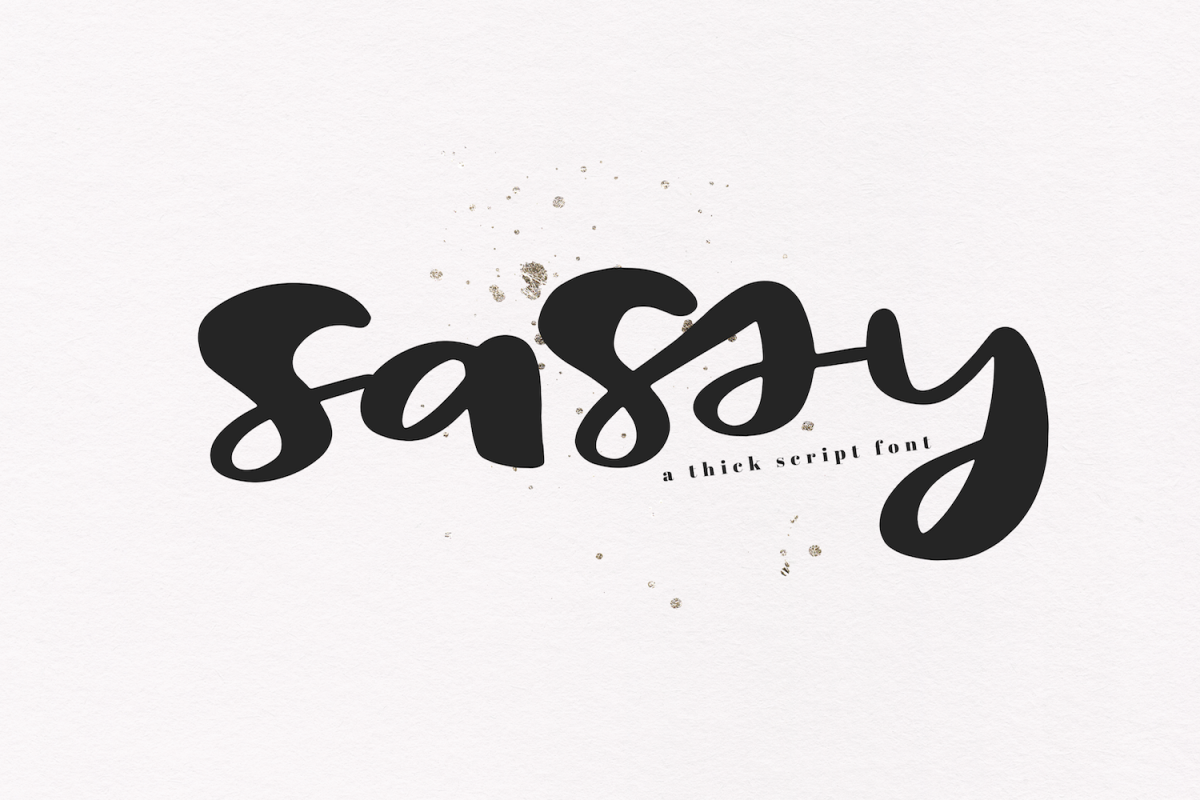
Sassy - A Bold Script Font
Sassy is a bold handwritten script font.
This font is perfect for quotes, headings, designs, logos, invitations and more!
This font *does not* include accent characters.